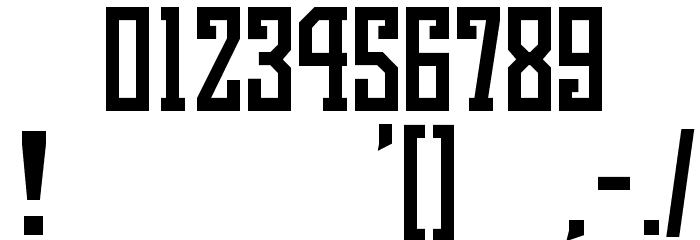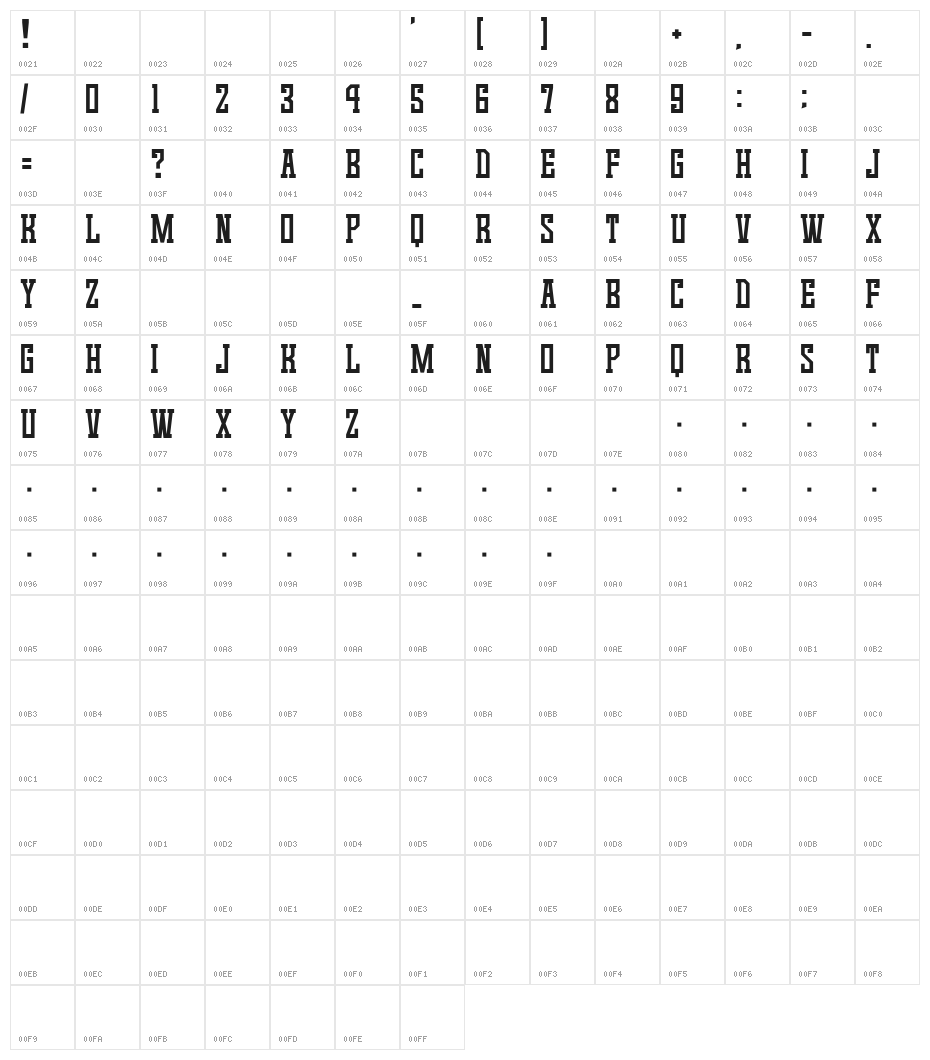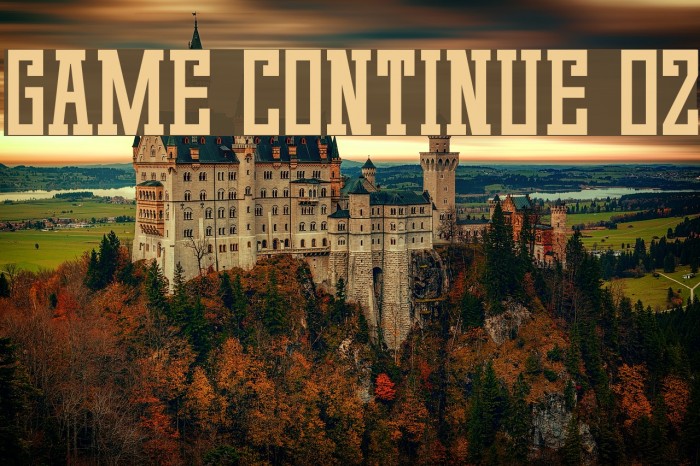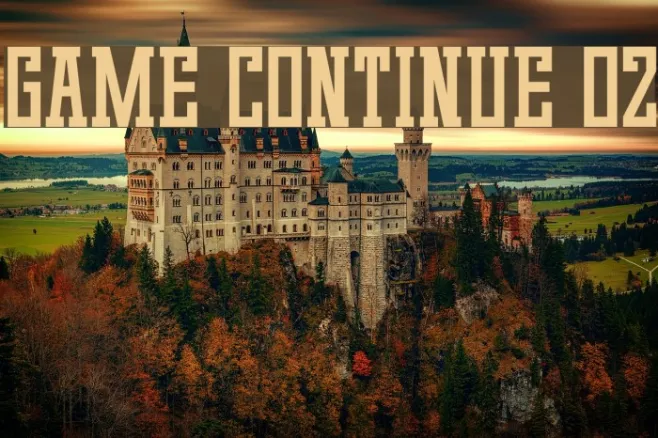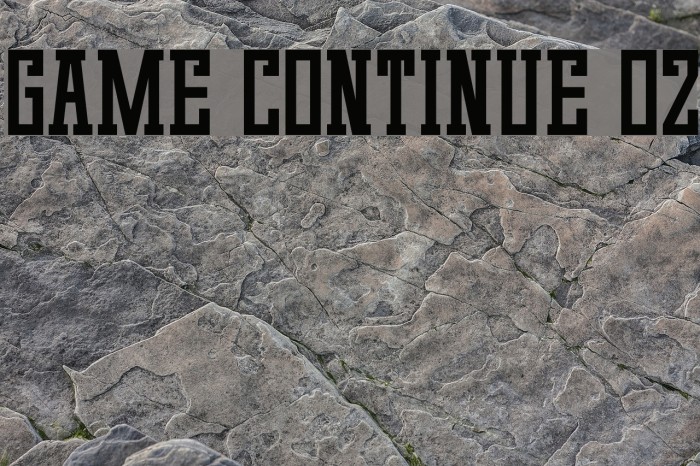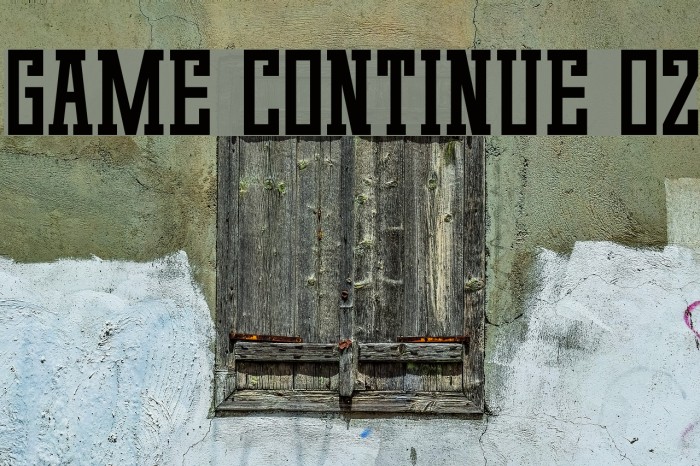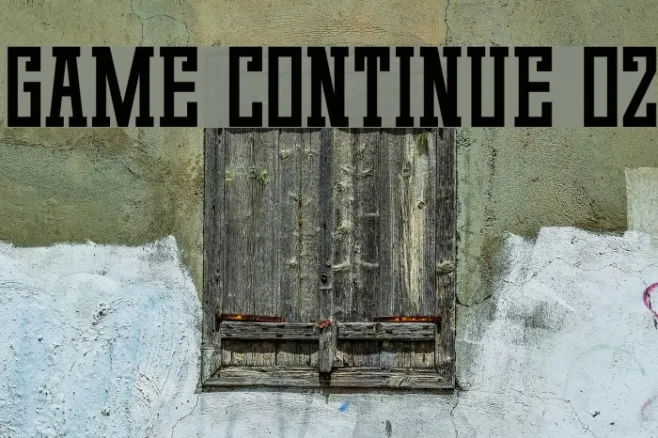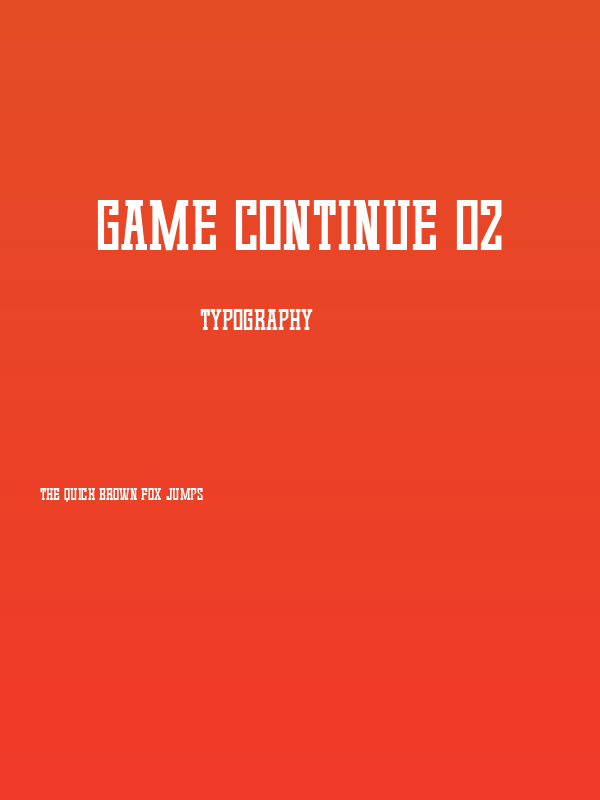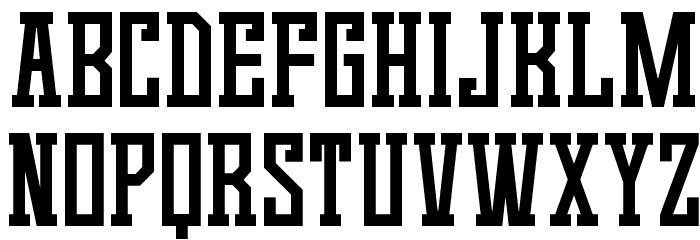
Game Continue 02 Font
Game Continue 02 Description
This font features a bold, geometric design with a strong presence, characterized by its blocky and angular letterforms. The uppercase and lowercase letters share a consistent height, contributing to a uniform appearance. The numerals and special characters maintain the same boldness, ensuring readability and impact. The font's design is reminiscent of athletic or collegiate styles, making it suitable for projects that require a sense of strength and authority. The sharp edges and clean lines give it a modern feel, while the overall structure suggests a vintage influence. This combination of styles makes it versatile for various design applications.
| Overall Style | Modern, Vintage |
| Proposed Projects | Ideal for sports branding, posters, headlines, and any project requiring a strong, authoritative typeface. |